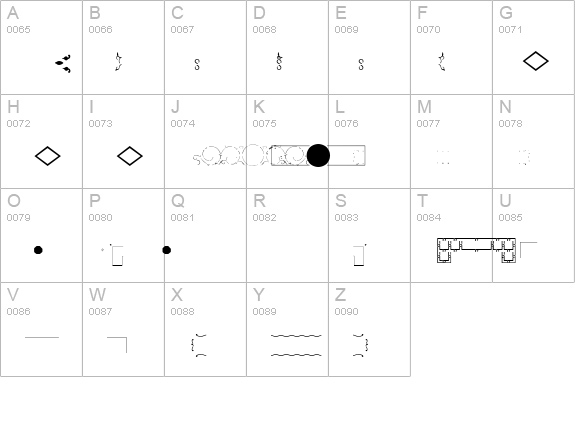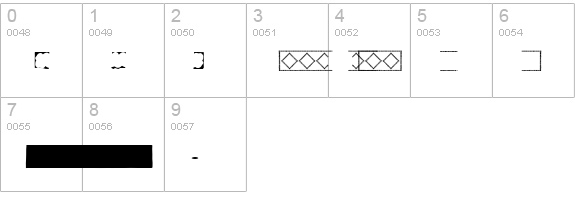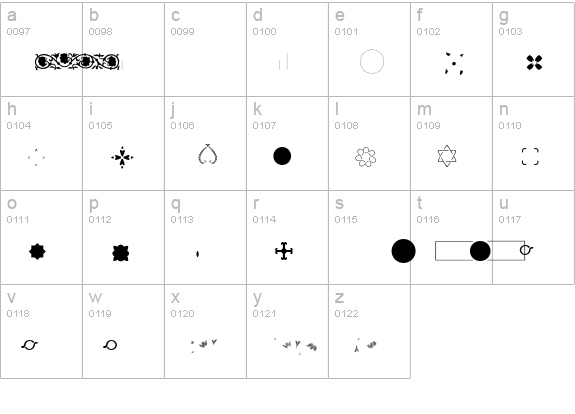
PFOrnmTreasures2-Layer2 font is a stunning display typeface that exudes elegance and sophistication. With intricate details and ornate embellishments, this font is perfect for adding a touch of luxury to your projects. Its two-layer design creates a beautiful depth and dimension that will make your text stand out. What's even better is that PFOrnmTreasures2-Layer2 font is completely free to download at FontsMarket.com. Yes, you read that right - you can enhance your designs with this exquisite font without spending a dime. So, why wait? Download PFOrnmTreasures2-Layer2 font now and elevate your creations with its timeless beauty.